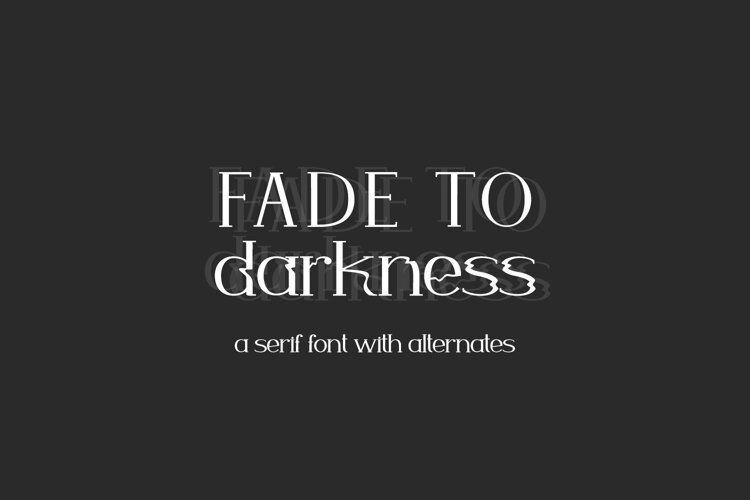
Fade to Darkness Serif Font
Fade to Darkness Serif is a clean & sophisticated serif on the outside…but on the inside, you’ll find eerie wavy alternates that look melty or like they’re fading away. It reminds me a bit of static, without all of the texture. This font’s versatility extends beyond Halloween because of its crisp & clean appearance: use for branding, large print design, product packaging, logos, and more. Fade to Darkness is a good fit for designers that are looking to make a Halloween-themed design that is a bit more elevated.
- 52 wavy alternates - A-Z, a-z